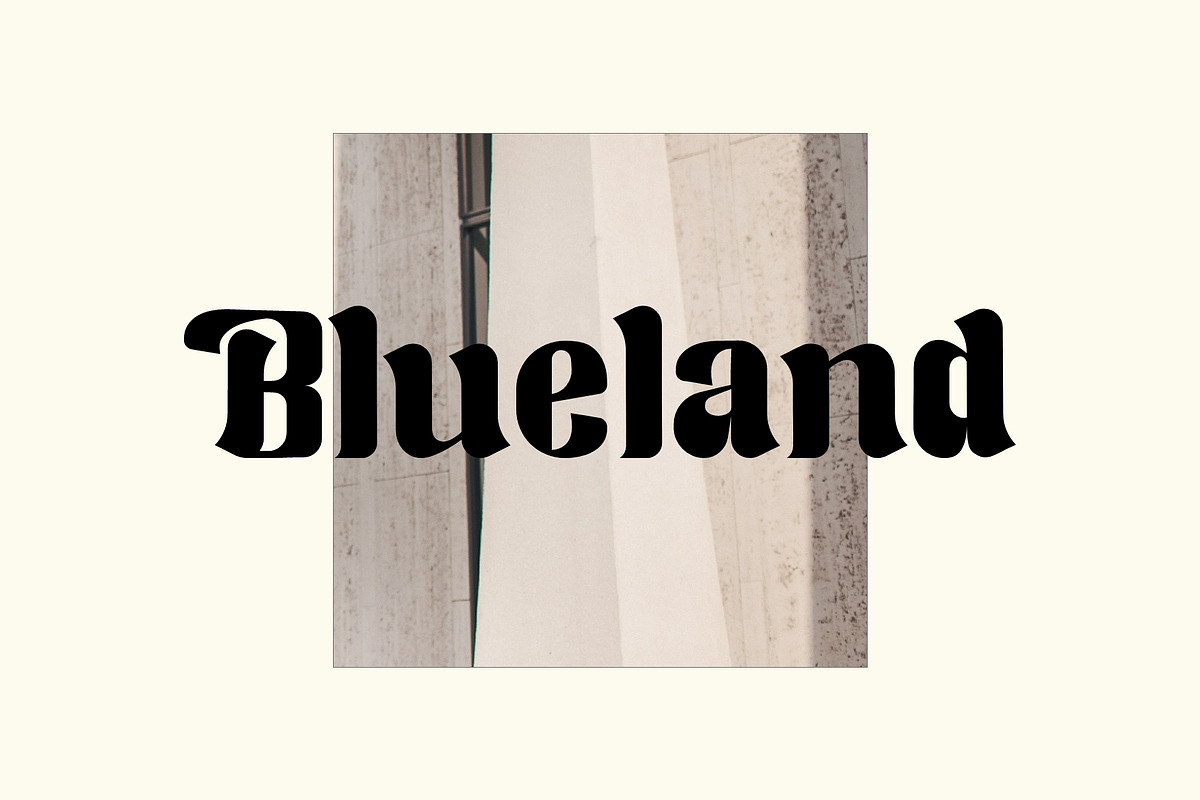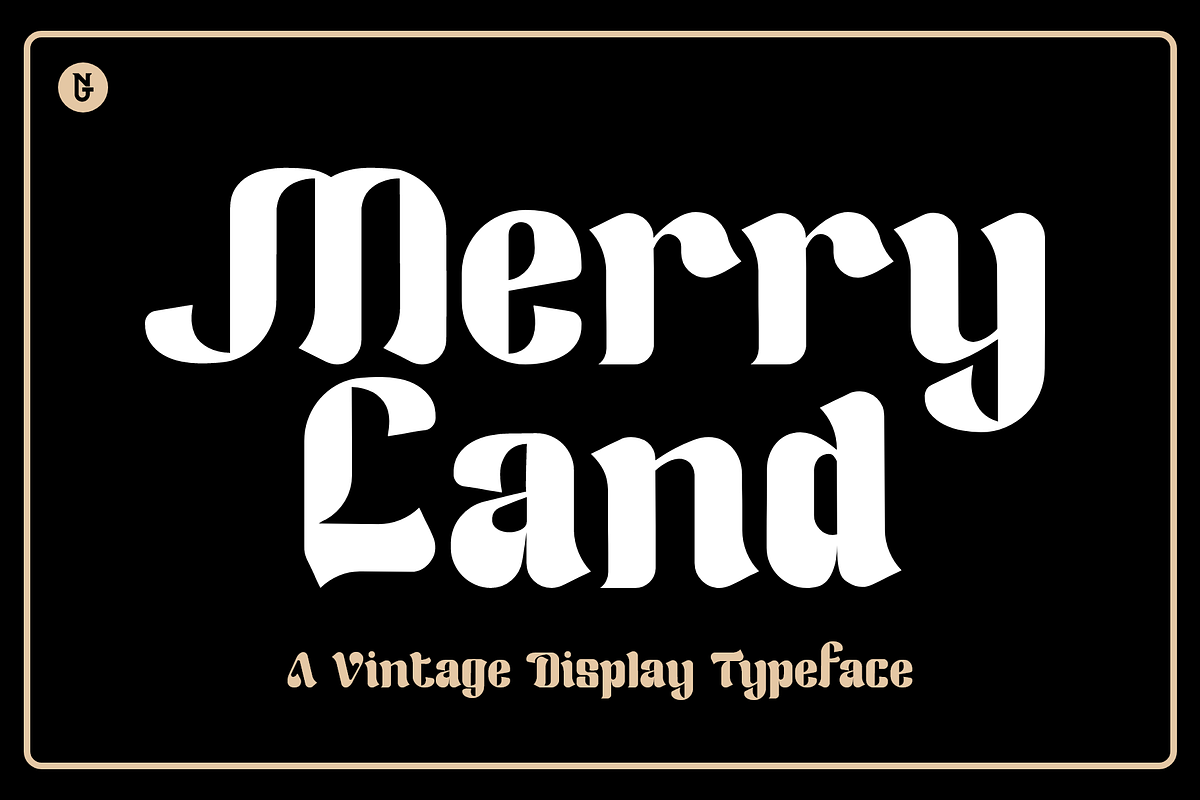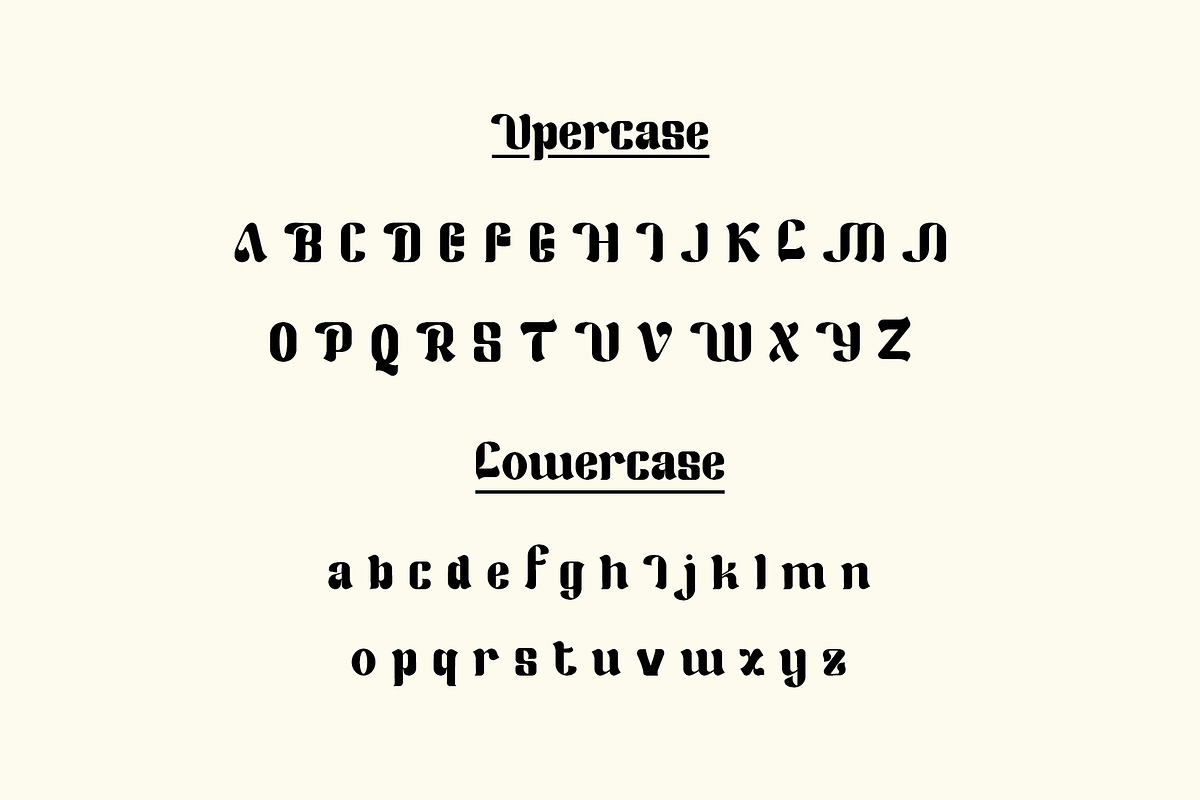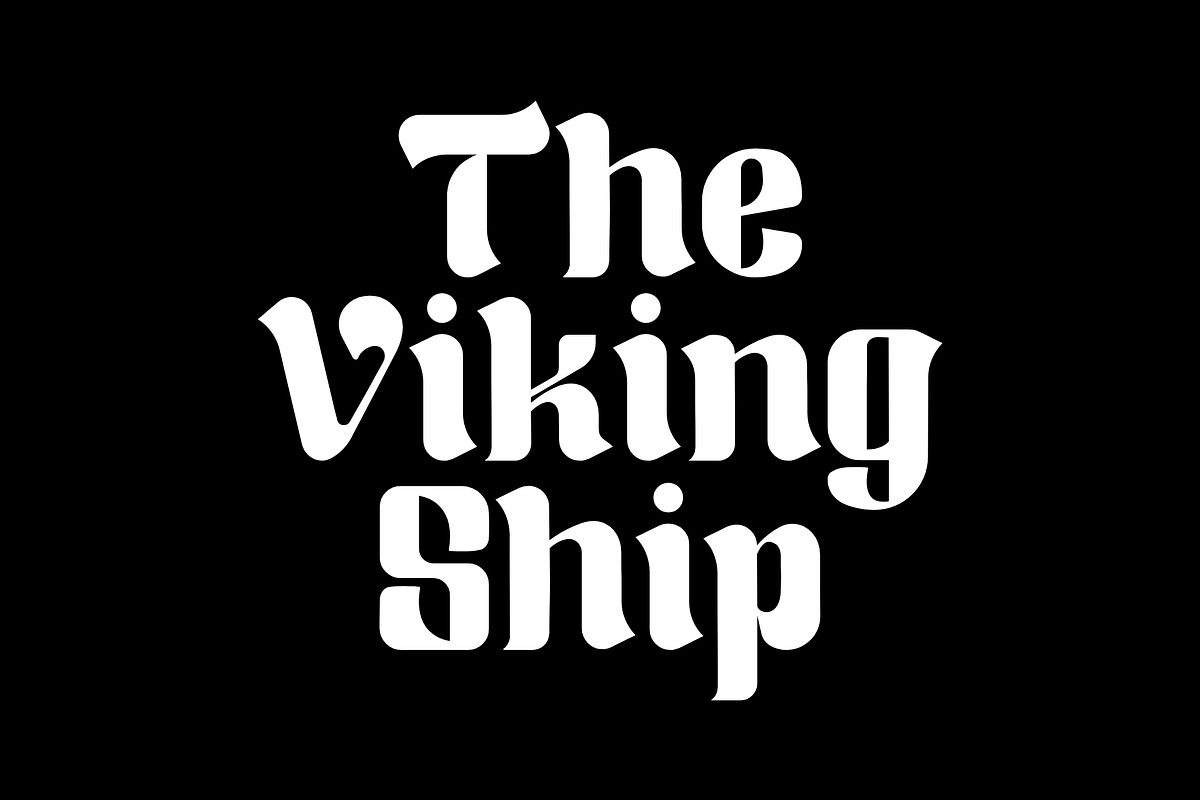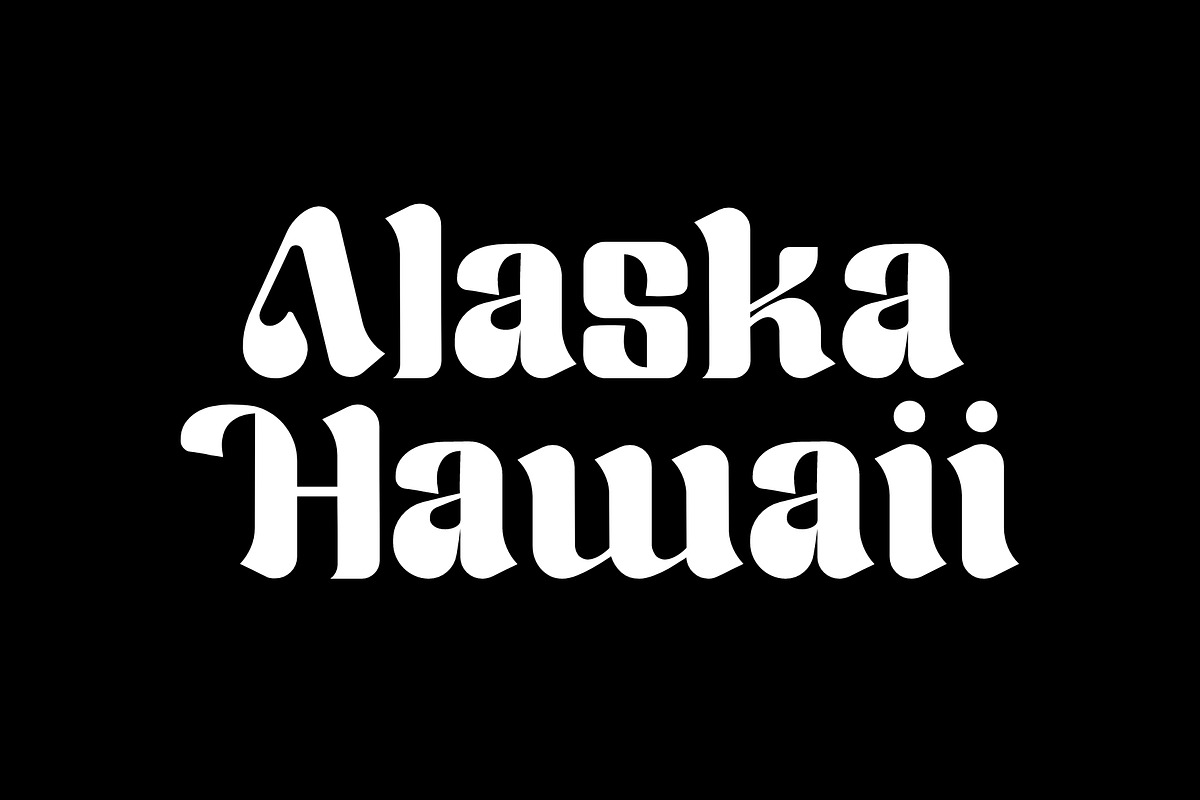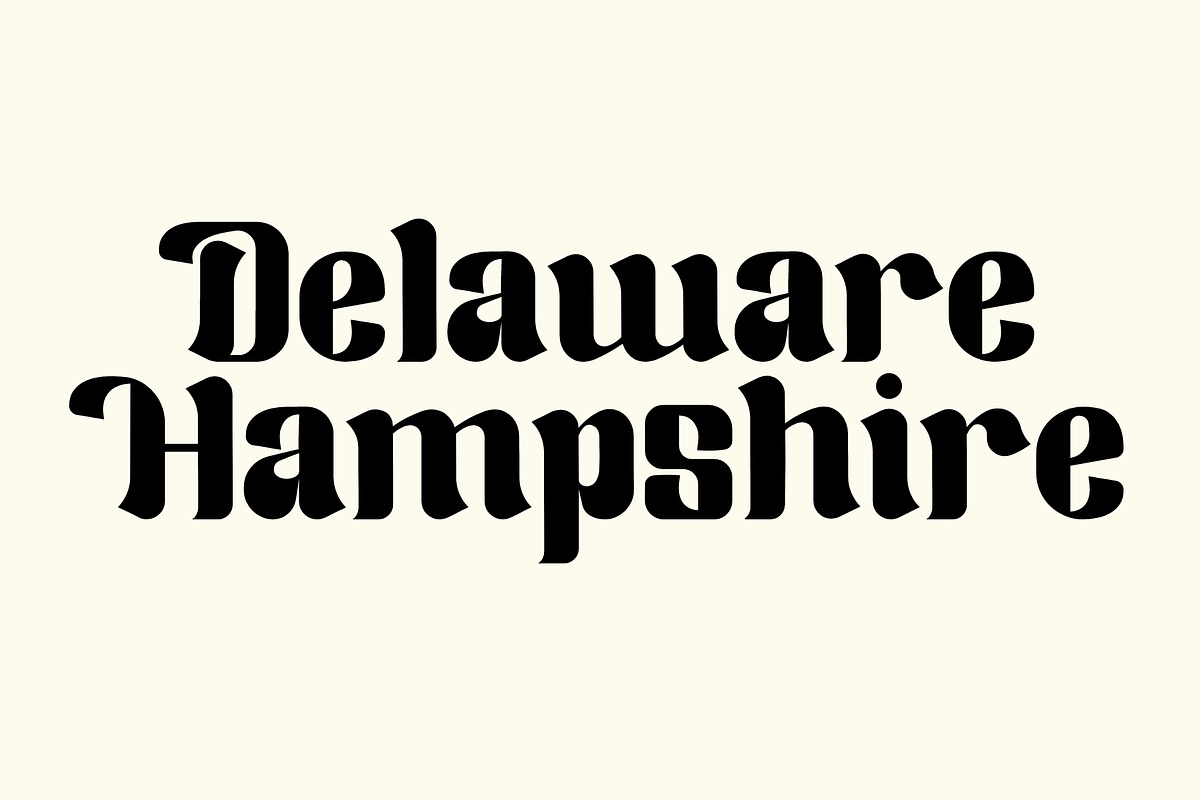
Merry Land Vintage Display
Merry Land is a typeface full of retro power. This unique, and bold lettering will make your project perfect. this font is very versatile, spanning a wide variety of projects, from bold magazine imagery, branding, poster design, and much more.